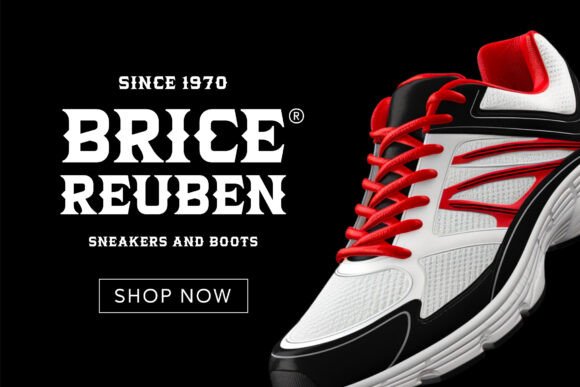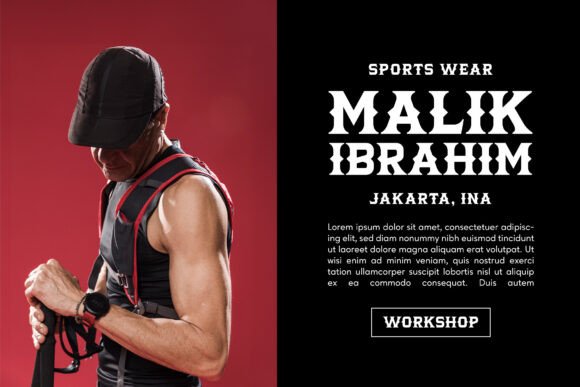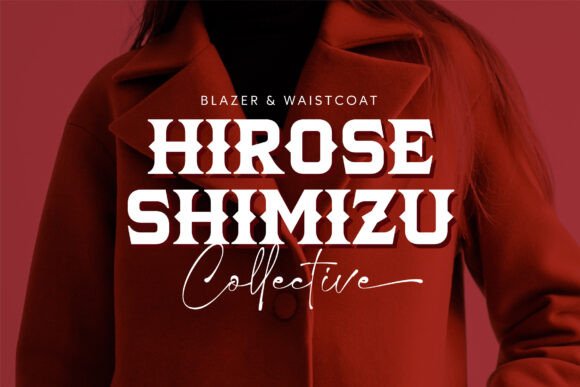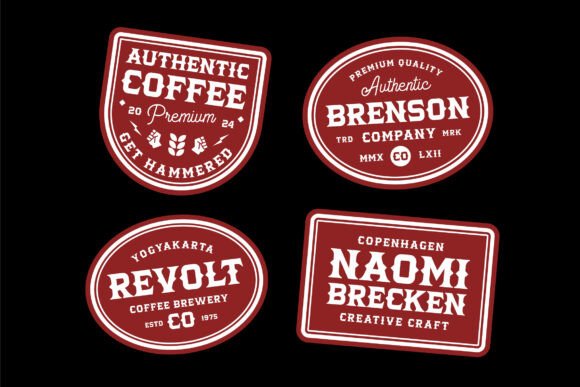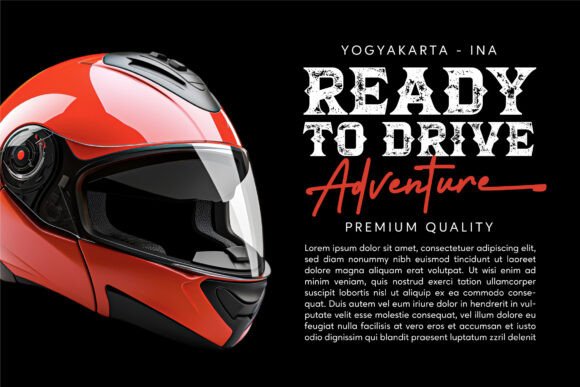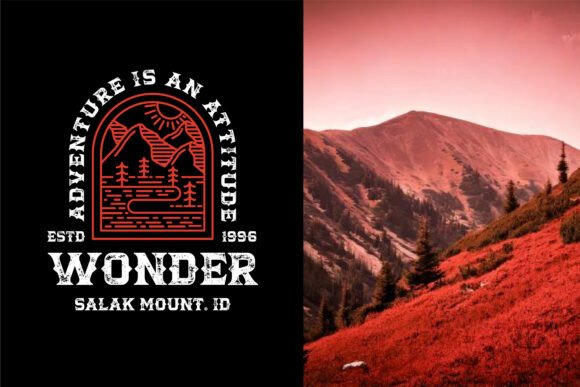
Introduction to Gabriel Briston Font
Gabriel Briston is a sporty modern display font.
Gabriel Briston font is ideal for logos, posters, packaging, banner, and other creative projects that demand visually aesthetic and distinctive elements .
Key Features of Gabriel Briston Font